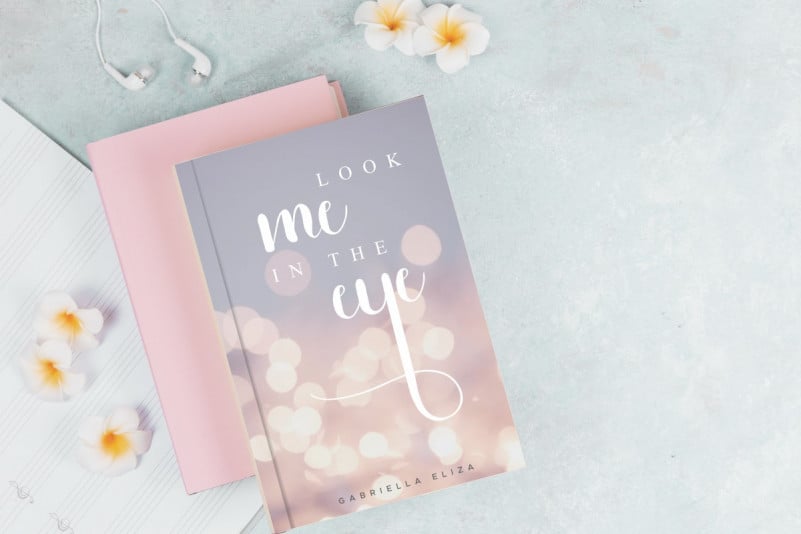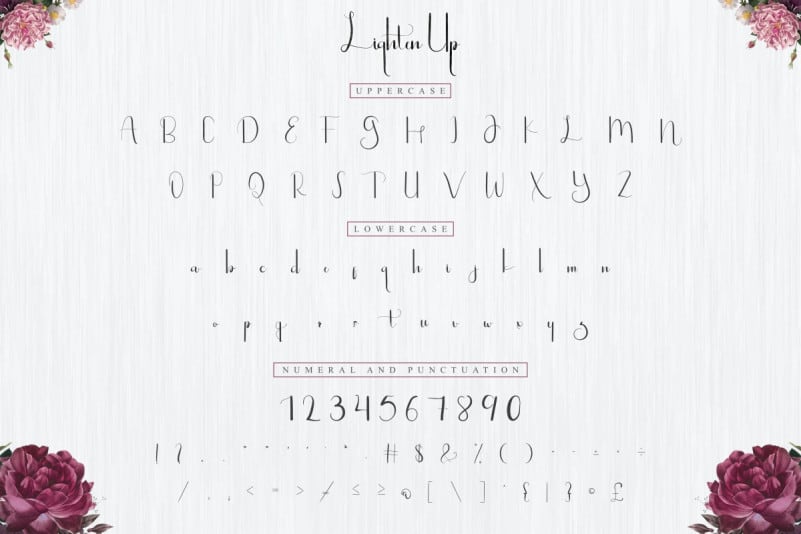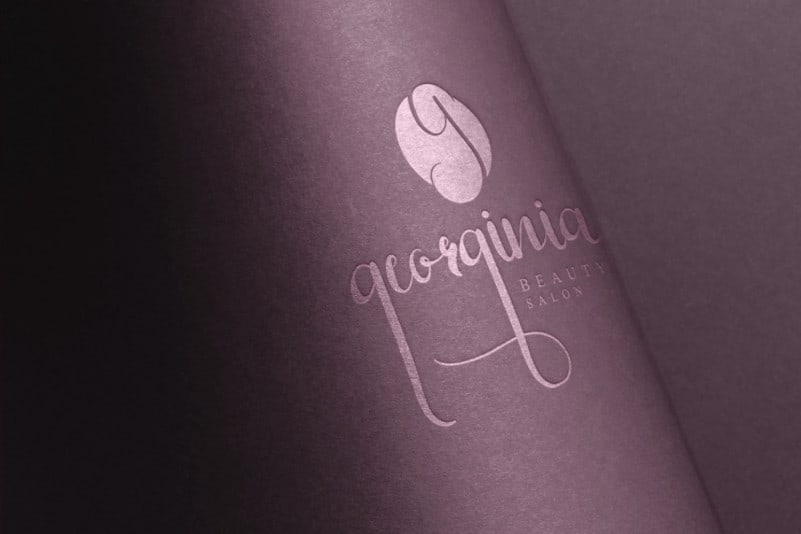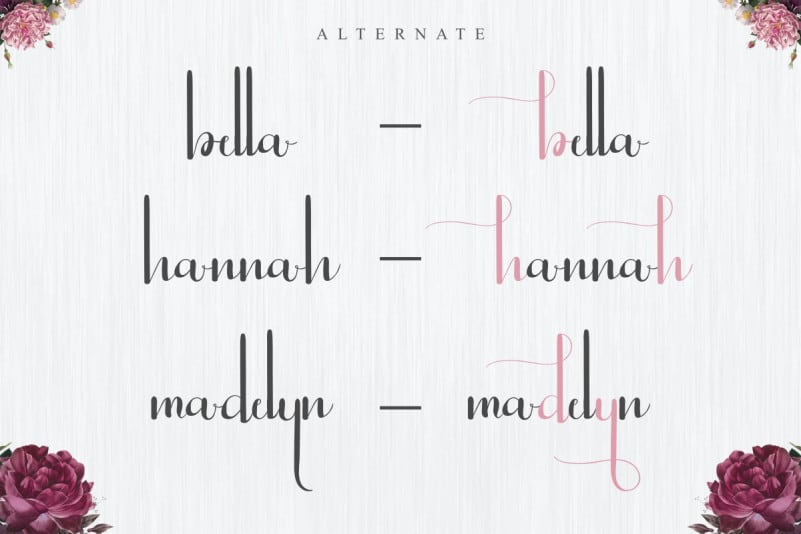
Lighten Up Luxury Script Font
Lighten Up Luxury Script Font is an exclusive calligraphy script typeface with luxury stylish style. This font has a stunning characters set, perfectly managed with well spaced and kerning. The theme style of this font will elegant, luxury, glamour, gold, vintage, stylish, sophisticated and modern style.
Lighten Up Luxury Script Font will be great for any projects including : branding, logo, stationery, business card, signage, flyer, brochure etc. Almost all industries will be match for this typeface: wedding, events, real estate, architect, law firm, florist, gardening, makeup artist, travel, hotel, musician etc